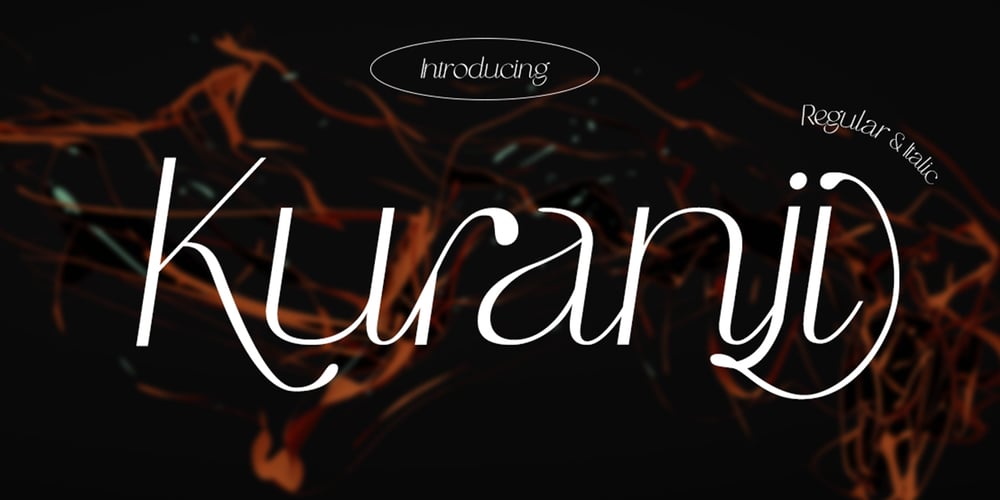
Kuranji Font Family was designed by Muhammad Afif Ersya and published by Mevstory Studio. Kuranji contains 2 styles and family package options. Kuranji, a brand new display font. It’s quirky letterforms make this font perfect for branding, headlines, logotype, stickers, editorial design, and more.Features : Regular Italic We highly recommend using a program that supports OpenType features and Glyphs panels like many of Adobe apps and Corel Draw, so you can see and access all Glyph variations.Contact us if you need something! Happy Designing!